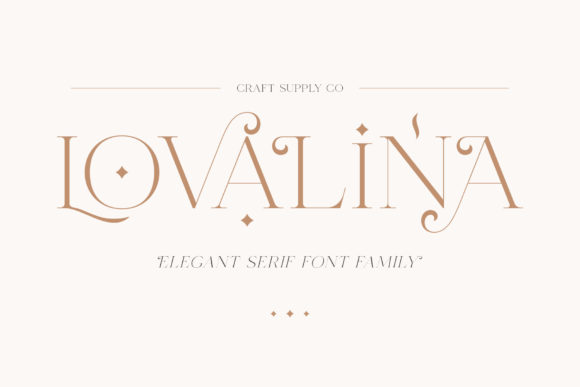
Welcome to the world of Lovalina Font, an extraordinary serif font family that brings a touch of timeless elegance to your digital creations. Crafted with the utmost attention to detail, Lovalina is not just a font; it's an experience that will captivate your audience and make your words dance off the screen.
With Lovalina, simplicity meets sophistication, creating a font that is both visually stunning and incredibly versatile. Its graceful curves and sharp serifs evoke a sense of classic beauty, while its modern twist adds a touch of contemporary flair. Whether you're designing logos, crafting invitations, or writing heartfelt letters, Lovalina will elevate your words and make them shine.
Step into a world where elegance and versatility intertwine, where your creativity takes center stage. Lovalina is the perfect font for those who seek to create designs that resonate with their audience. Its wide range of applications makes it an indispensable tool for designers, marketers, and content creators alike.
Imagine your words adorned with the grace of Lovalina, capturing the attention of your readers and leaving a lasting impression. Its timeless beauty will add a touch of sophistication to your projects, whether you're designing a magazine spread, creating stunning social media graphics, or crafting eye-catching presentations.
Lovalina is more than just a font; it's an investment in your creative expression. Its versatility will empower you to explore a myriad of design possibilities, limited only by your imagination. Unleash your creativity and let Lovalina take your projects to new heights.